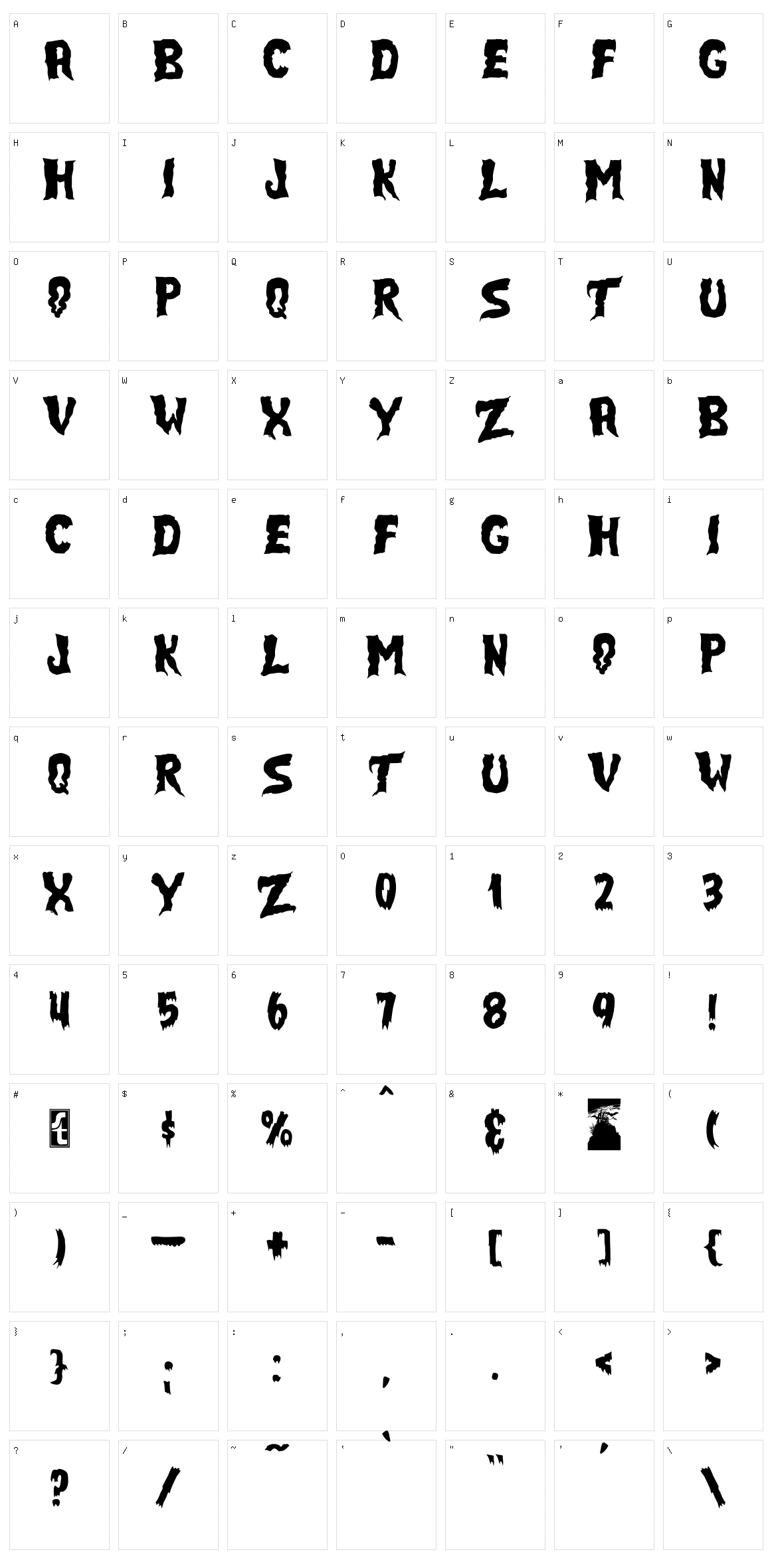
The free font JMH Select Terror is carefully designed by Jorge Morón, showcasing a thoughtful balance of creativity and usability and falls under the Horror font style. When you download the ZIP file, it contains only 423.46 KB of font files, making it lightweight and quick to download. Please review the license details below to understand permitted usage and distribution rights. If license information is not available, we recommend using this font for personal projects only or contacting the author directly for commercial usage permissions.